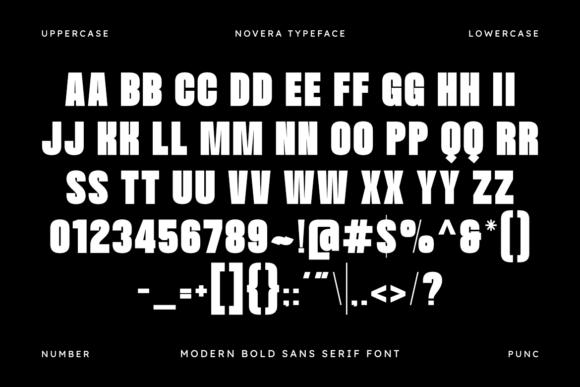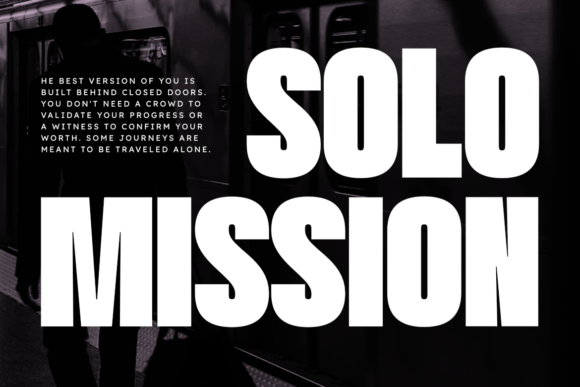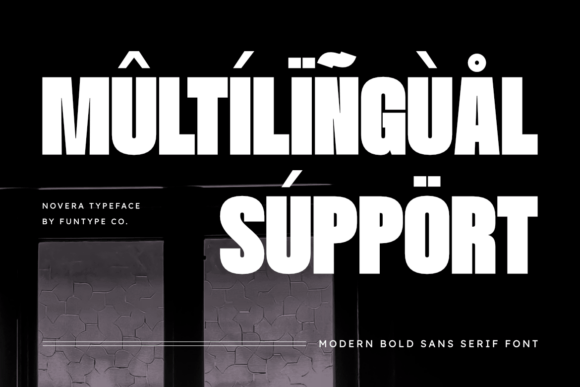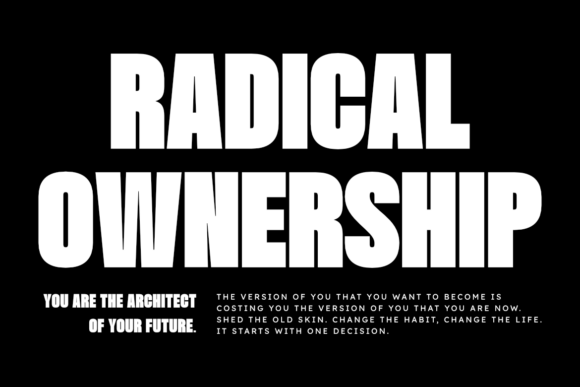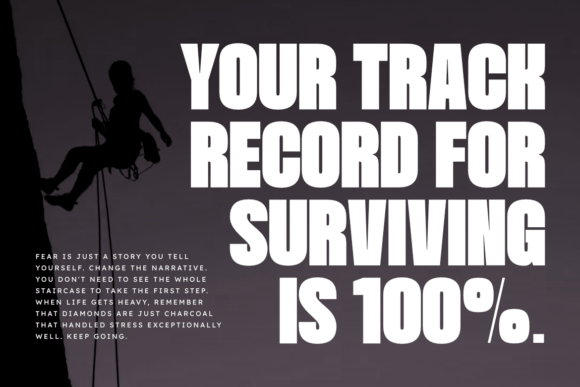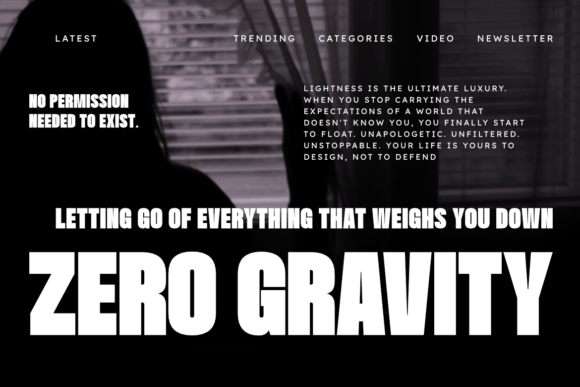
Introduction to Novera Font
Novera is a powerful and impactful sans serif display font designed to make a bold statement.
With its heavy weight, clean lines, and solid structure, Novera exudes confidence and modern authority It is the ultimate choice for designers who need a typeface that commands attention and delivers maximum visual strength.
Key Features of Novera Font